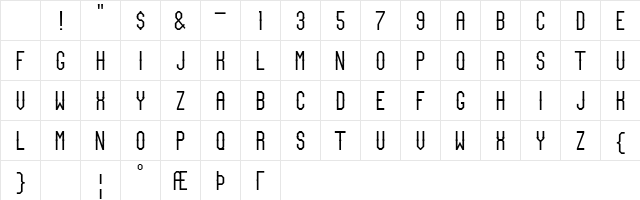
Complete Team Captain Demo Regular glyph index. Displaying only characters natively supported by Team Captain Demo Regular font.
Team Captain Demo is a composed and adaptable typeface that performs quietly and consistently across a wide range of design contexts.